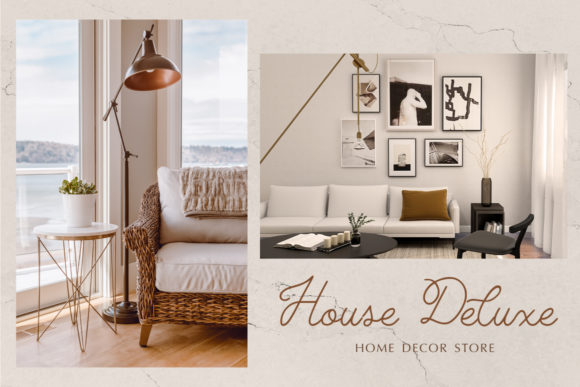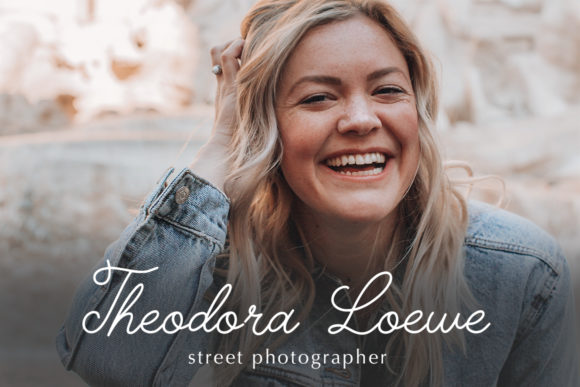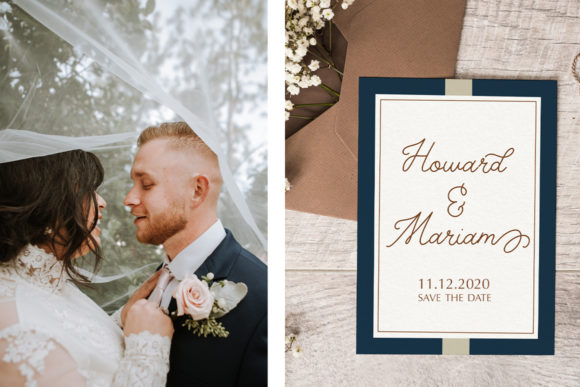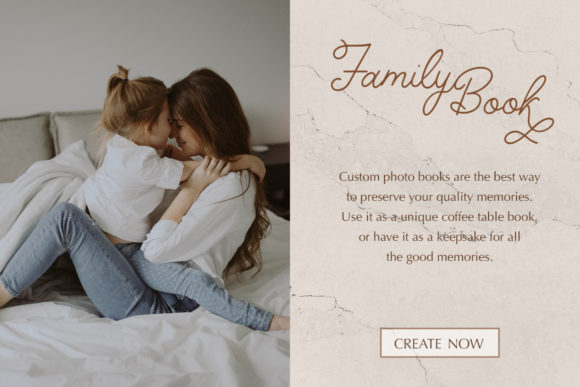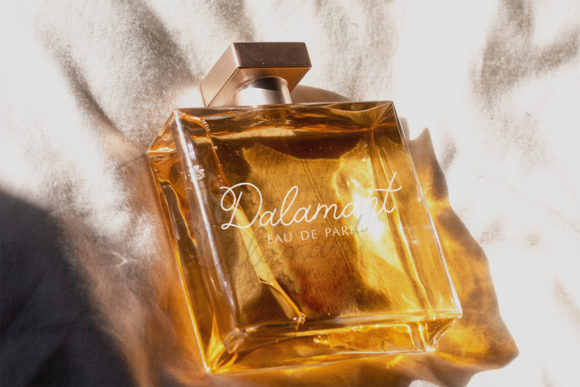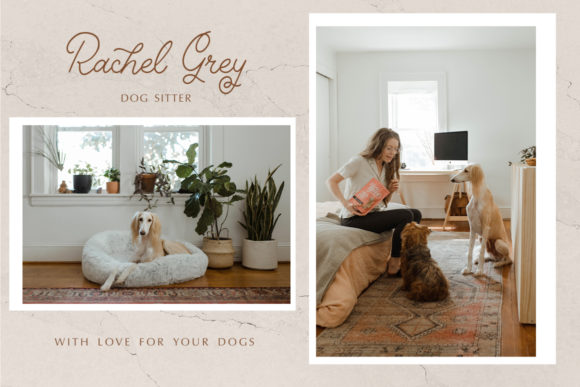
Introduction to Lambardia Font
Have you ever found yourself in the midst of a creative project, searching for that perfect font to elevate your design to the next level? The hours tick by as you scroll through endless options, and yet, nothing seems to capture the essence of your vision. It’s in these moments of frustration that we stumble upon a hidden gem, one that changes the game and sets our imagination ablaze. For designers, finding the right font can be a game-changer, and that’s exactly what the Lambardia Font is all about.
This delicate and elegant handwritten font is a design resource like no other, offering a level of sophistication and refinement that’s hard to find elsewhere. Whether you’re working on a branding project, crafting wedding invitations, or designing labels, the Lambardia Font is sure to add that extra oomph to your creative project.
Key Features of Lambardia Font
- Unique, modern design that adds a touch of elegance to any creative project
Honest Review: Lambardia Font
I recently had the chance to experiment with the Lambardia Font, and I must say it’s a high-quality design resource that has a lot of potential.
What works well is the unique and creative style of the font. It’s perfect for a creative project that requires something modern and stylish. The font also includes a transparent background, which makes it easy to use in various design scenarios.
- High-quality design that looks great on any device
- Unique and creative style that’s perfect for modern designs
- Transparent background for easy use in various design scenarios
However, there are a few limitations to consider. The font may not be suitable for all types of designs, and the character set is limited.
Overall, I think the Lambardia Font is a great addition to any designer’s toolkit, and I would definitely consider using it for future creative projects.
Just be aware of the limitations and use it in the right context.
How to Use Lambardia Font
Tips for Getting the Most Out of Lambardia Font
To get the most out of the Lambardia Font, experiment with different font sizes, colors, and styles. Use the font’s transparent background to create visually appealing overlays and design elements.
Common Use Cases for Lambardia Font
The Lambardia Font is perfect for a variety of creative projects, including logos, infographics, presentations, and reports. Its high-quality design and transparent background make it a versatile resource for designers and non-designers alike.
Alternatives to Lambardia Font
The Lobster Font is a high-quality, handwritten font perfect for creative projects that require a personal touch. It’s available for free download and is ideal for use on a transparent background. When to use: Use Lobster Font for wedding invitations, menus, or any other design project that needs a romantic and elegant feel. Compared to Lambardia Font, Lobster Font has a more cursive and flowing feel, making it ideal for projects that require a sense of movement and elegance.
The Great Vibes Font is a beautiful, cursive font that’s perfect for designers looking for a high-quality, free download. It’s ideal for use on a transparent background and is perfect for creative projects that require a sense of sophistication and elegance. When to use: Use Great Vibes Font for wedding invitations, business cards, or any other design project that needs a touch of class and sophistication. Compared to Lambardia Font, Great Vibes Font has a more refined and elegant feel, making it ideal for projects that require a sense of luxury and high-end design.